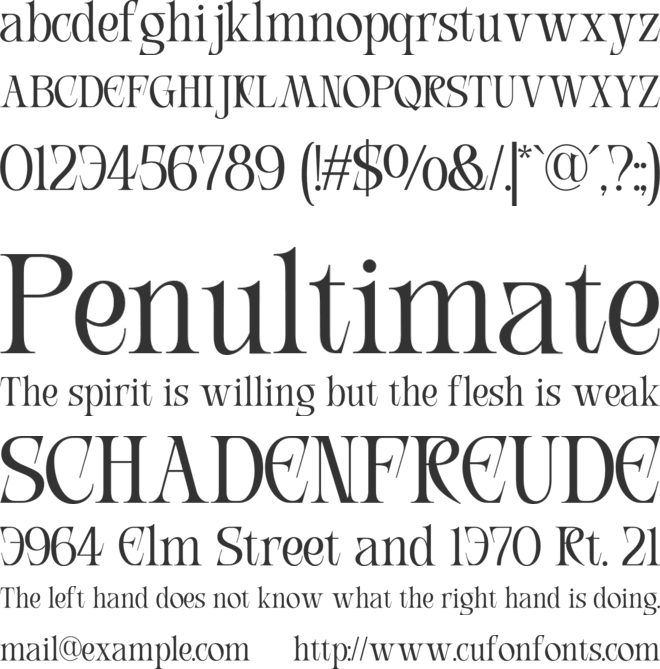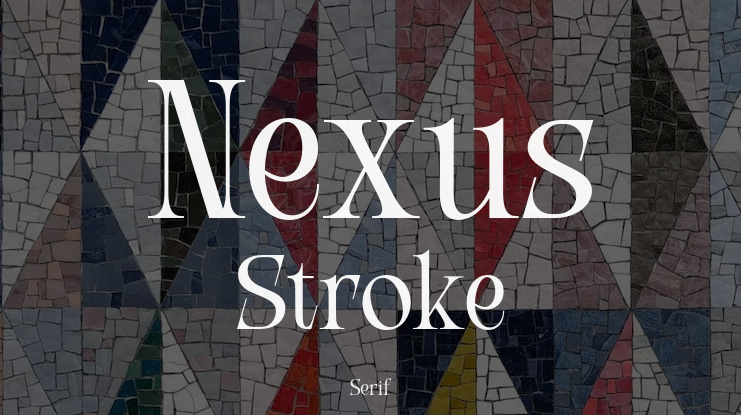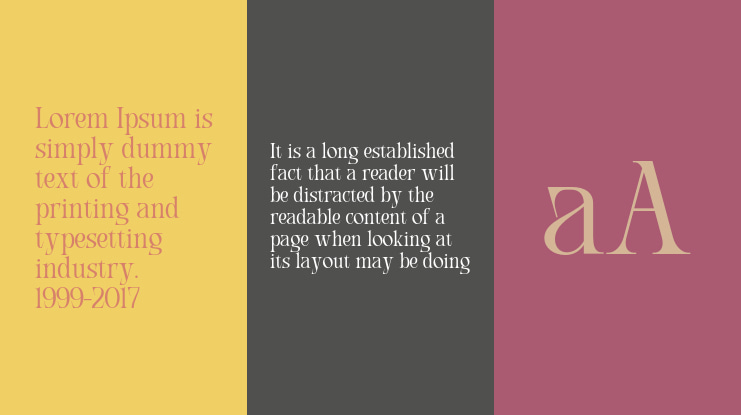
Nexus Stroke Font Family
Nexus Stroke is a modern serif font designed with bold elegance and a contemporary twist. Its condensed letterforms, refined details, and 63 stylish ligatures bring sophistication that feels both timeless and innovative. With smooth kerning, graceful curves, and sleek proportions, Nexus Stroke is perfect for making strong statements while staying highly readable. From logos, branding, packaging, and fashion editorials to social media, wedding invitations, posters, and editorial layouts, this font adapts beautifully across creative projects. Nexus Stroke is crafted for designers, business owners, and creatives who want their visuals to stand out try it today and elevate your designs with a font that blends elegance and bold creativity.